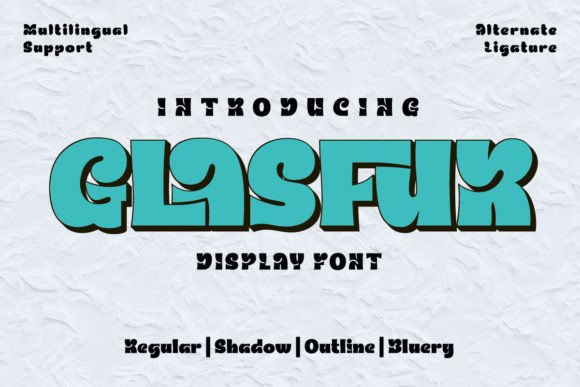
Step into the realm of typography and be enthralled by Glasfur, a font that exudes playfulness, uniqueness, and boundless strength. Its captivating Bubble display style transforms your words into visual masterpieces, captivating audiences across diverse platforms.
Glasfur's versatility knows no bounds, with four distinct family variants – regular, blurry, outline, and shadow – that unleash your creativity and allow you to paint your imagination onto the digital canvas. Experiment with ligatures and alternate features to craft captivating letter combinations that dance across the screen, leaving a lasting impression.
With Glasfur, linguistic barriers vanish, as it embraces multiple languages, bridging the gap between cultures and connecting you with a global audience. Unleash your creativity without limits, knowing that Glasfur will effortlessly adapt to your linguistic needs.
Make your designs shine with Glasfur's captivating presence. Let your words captivate, inspire, and ignite imaginations. Experience the transformative power of Glasfur and elevate your designs to new heights of brilliance. Own this font and witness the magic unfold!